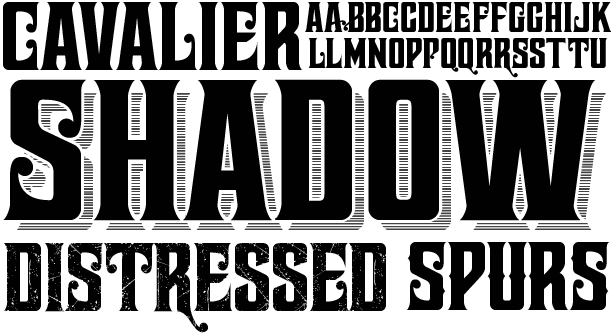
HomeFont BrosArt Deco (1910-1935)Cavalier Art Deco (1910-1935)Special EffectHistorical Cavalier FacebookXPinterestWhatsApp 1 of 1 About Cavalier Inspired by old stock certificates, FDF Cavalier is a bold font that draws attention. Font set includes 4 versions.  DOWNLOAD ON FONT BROSThis font is sold and delivered by Font Bros. Font Canyon may earn a commission if you buy through this link. People also explored Cataluna Font Samround Font Shogas Font Enphand Font Turtle Font Little Ghost Font Melamine Font Handy Font Margot & Margery Font 266 0 TagsCavalier Font Previous articleLamplighter ScriptNext articleBaby Doodles LEAVE A REPLY Cancel reply Comment: Please enter your comment! Name:* Please enter your name here Email:* You have entered an incorrect email address! Please enter your email address here Website: Save my name, email, and website in this browser for the next time I comment. Personal Use Free Romantic February Personal Use Free Read more about this font Messy Personal Use Free Read more about this font Xplor Personal Use Free Read more about this font Rellista Script Personal Use Free Read more about this font BLOG How to Cut Any Font on Cricut: Convert a Font to SVG (Free) Turn any font into a clean SVG so it cuts crisp on Cricut - a quick 3-step workflow using a free font-to-SVG tool. The 10 Best Handwriting Fonts to Add Personality to Your Designs Best Fonts for T-Shirt Design – Top 2025 Picks How to Install and Use Fonts on Windows, macOS, and Web Projects